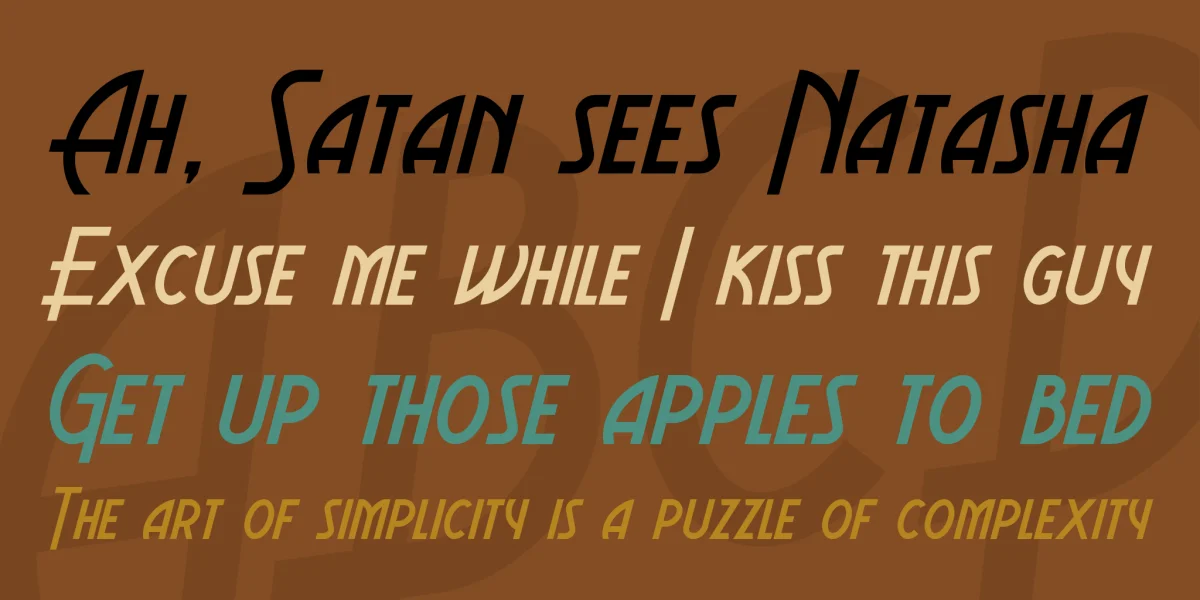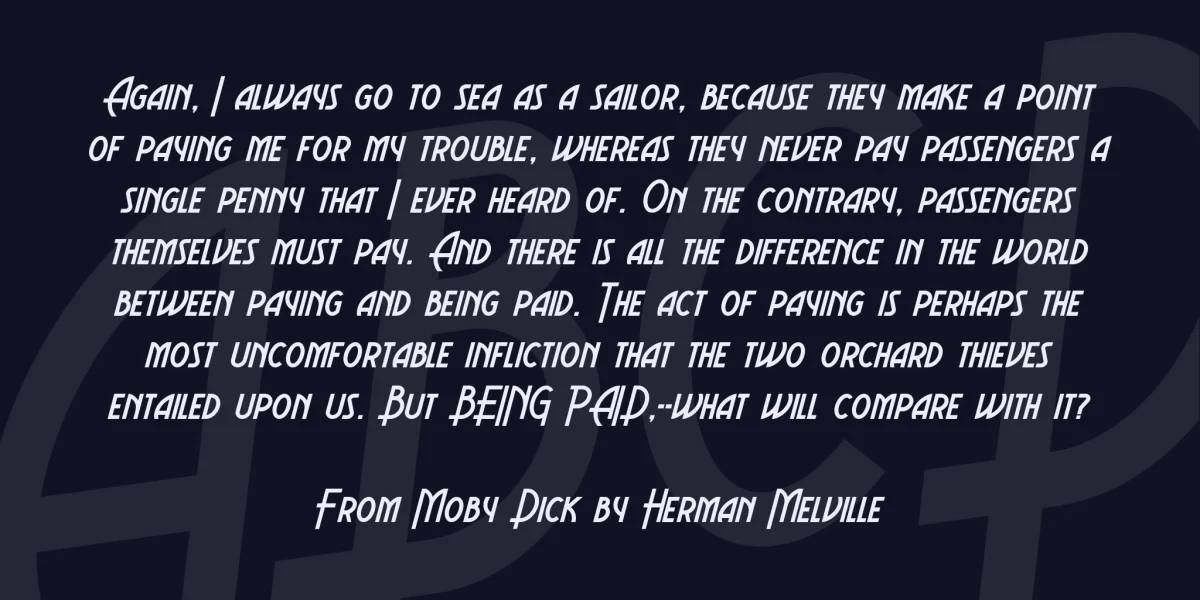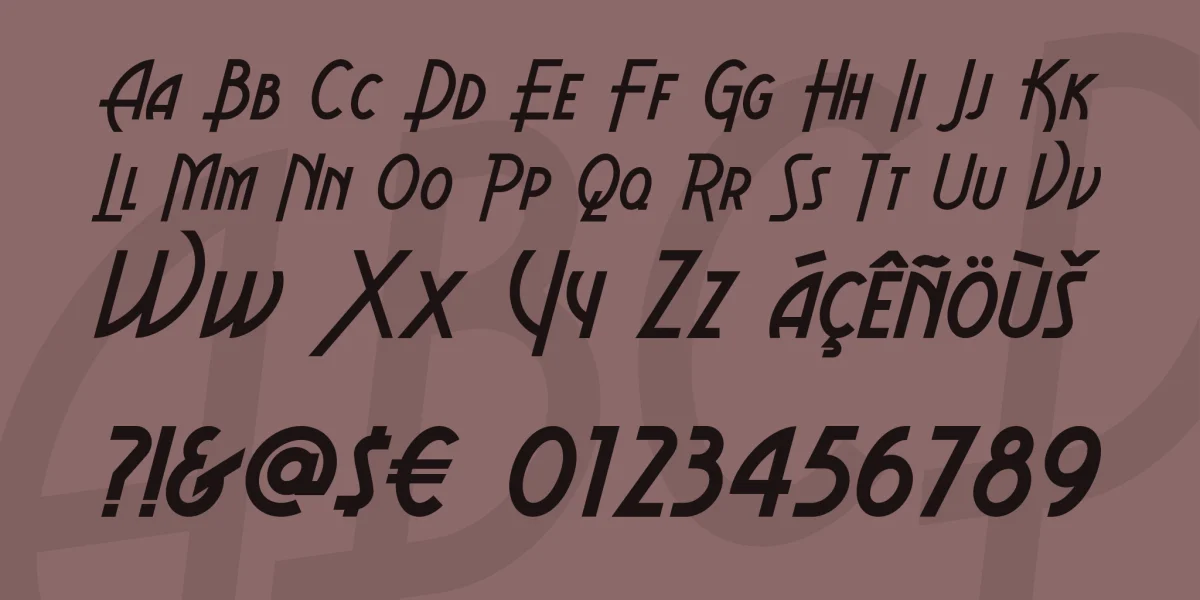
Eponymous logotype lettering on an airline timetable from 1948 inspired this exercise in aerodynamics. This typeface’s streamlined design remains fresh, even sixty-plus years on.